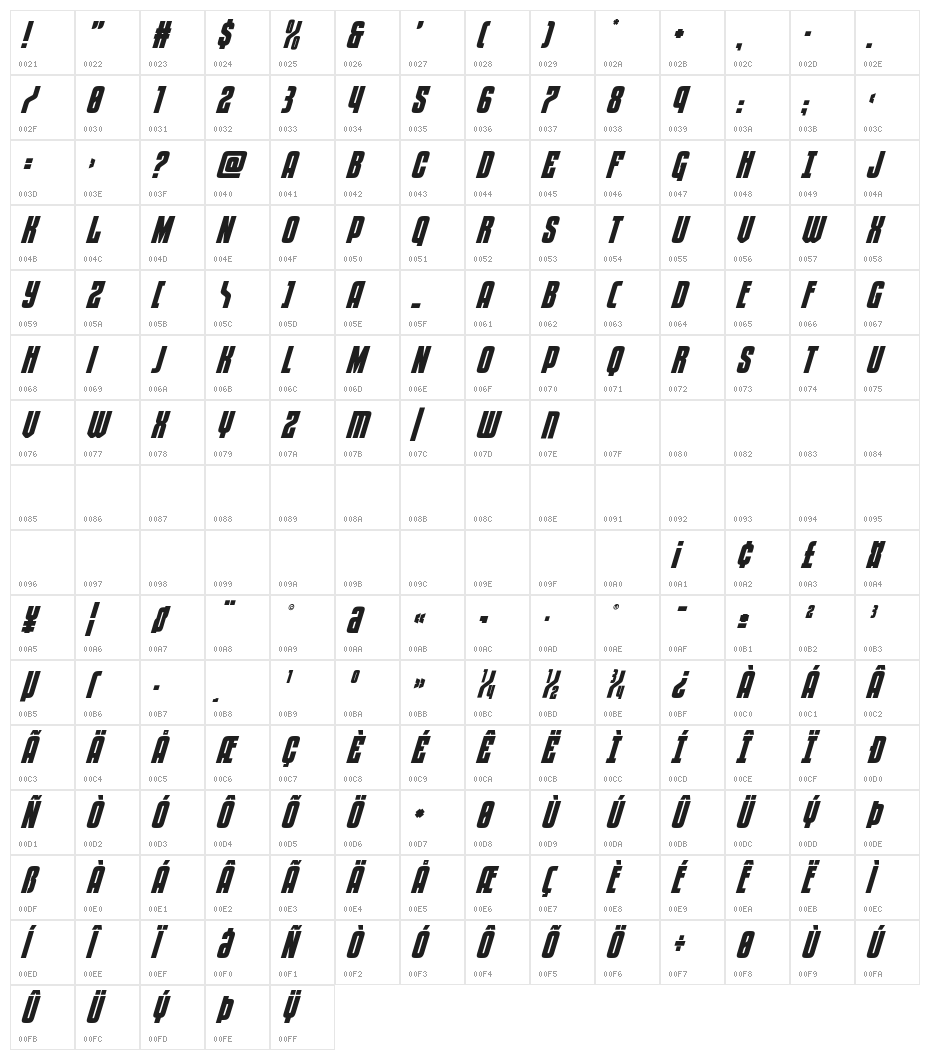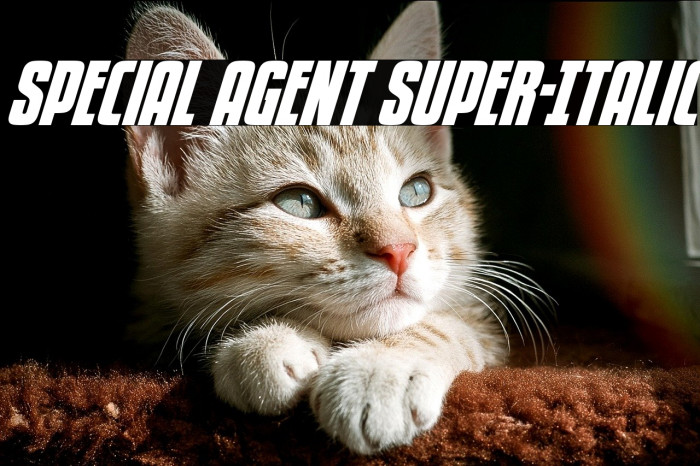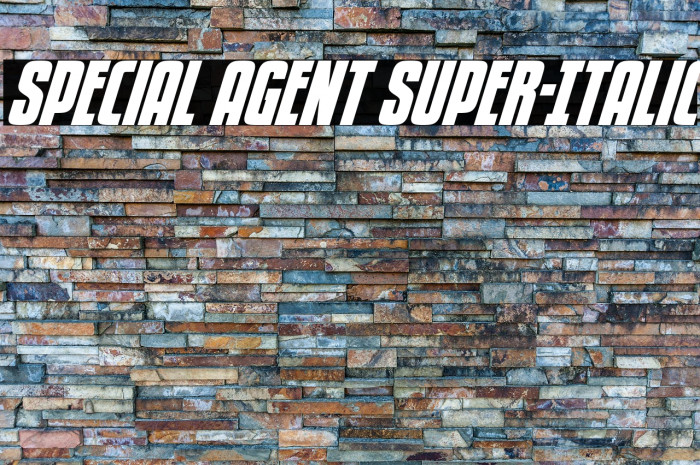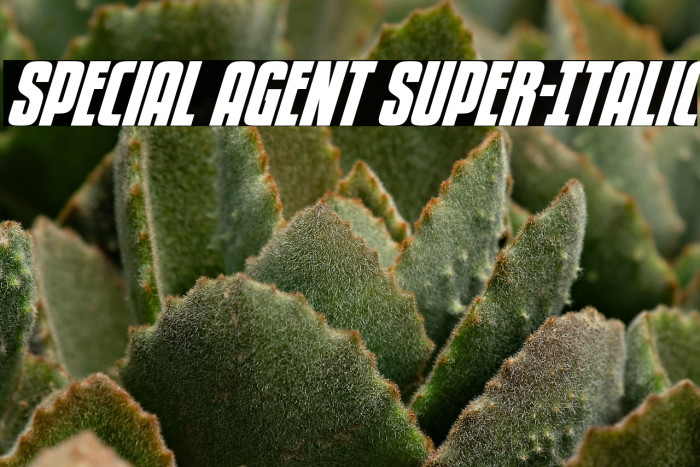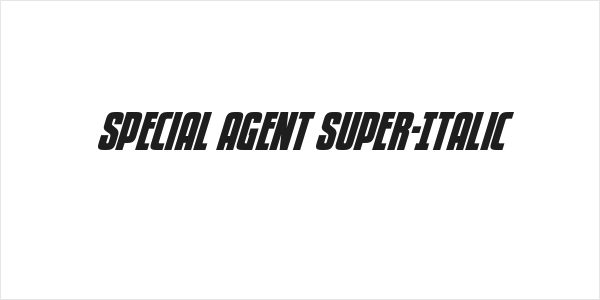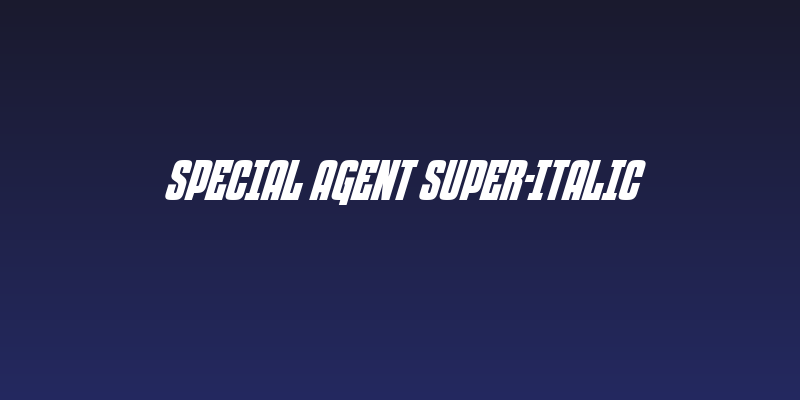
Special Agent Super-Italic Font
Special Agent Super-Italic Description
This font exhibits a bold, dynamic style with a strong italic slant, giving it a sense of motion and urgency. The characters are tightly spaced, enhancing its compact and impactful appearance. The strokes are thick and consistent, providing a high contrast that makes the font stand out prominently. Its design is modern and assertive, suitable for creating a strong visual impact. The uppercase and lowercase letters maintain a uniform style, with sharp edges and a slightly condensed width, contributing to its sleek and professional look.